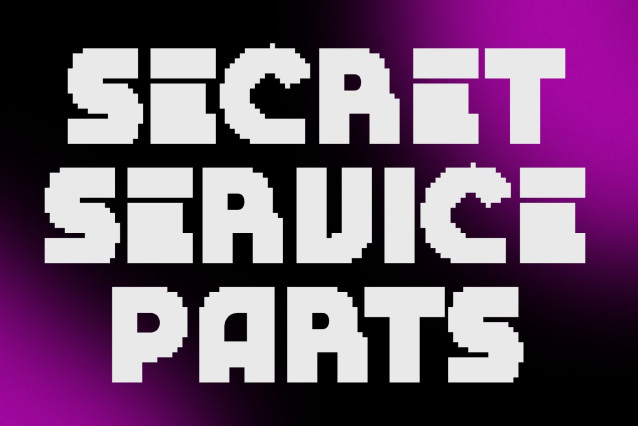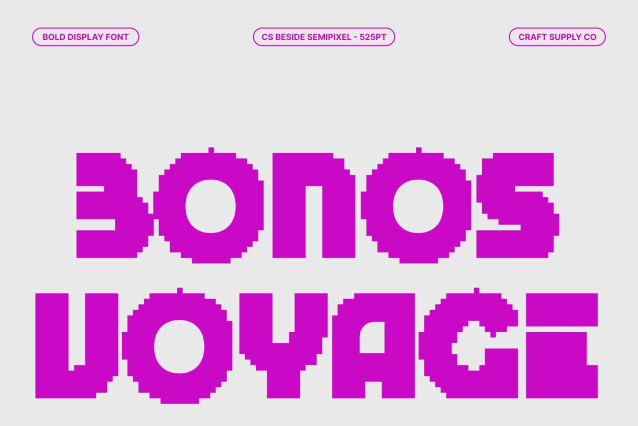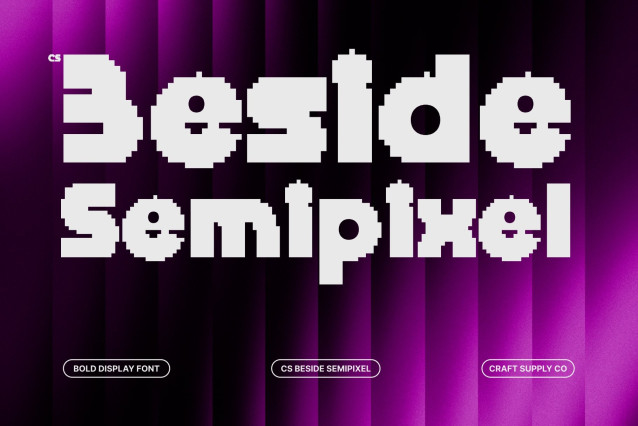
CS Beside Semipixel Font
CS Beside Semipixel – Bold Display Font: Experimental, Futuristic, and Striking
Powerful and Bold Display Presence
This is a bold display font designed to command attention through strong letterforms and an unmistakably futuristic attitude. Its powerful structure creates an immediate visual impact, making every headline feel energetic, confident, and impossible to overlook.
Experimental Semi Pixel Style with Futuristic Appeal
Combining pixel-inspired geometry with modern experimental construction, this font introduces a distinctive semi pixel aesthetic that feels both digital and cutting-edge. The squared forms bring a technological edge, while the refined curves and unconventional shapes create a smoother, more contemporary appearance. This balance gives the font a futuristic identity that feels innovative without becoming overly rigid or retro.